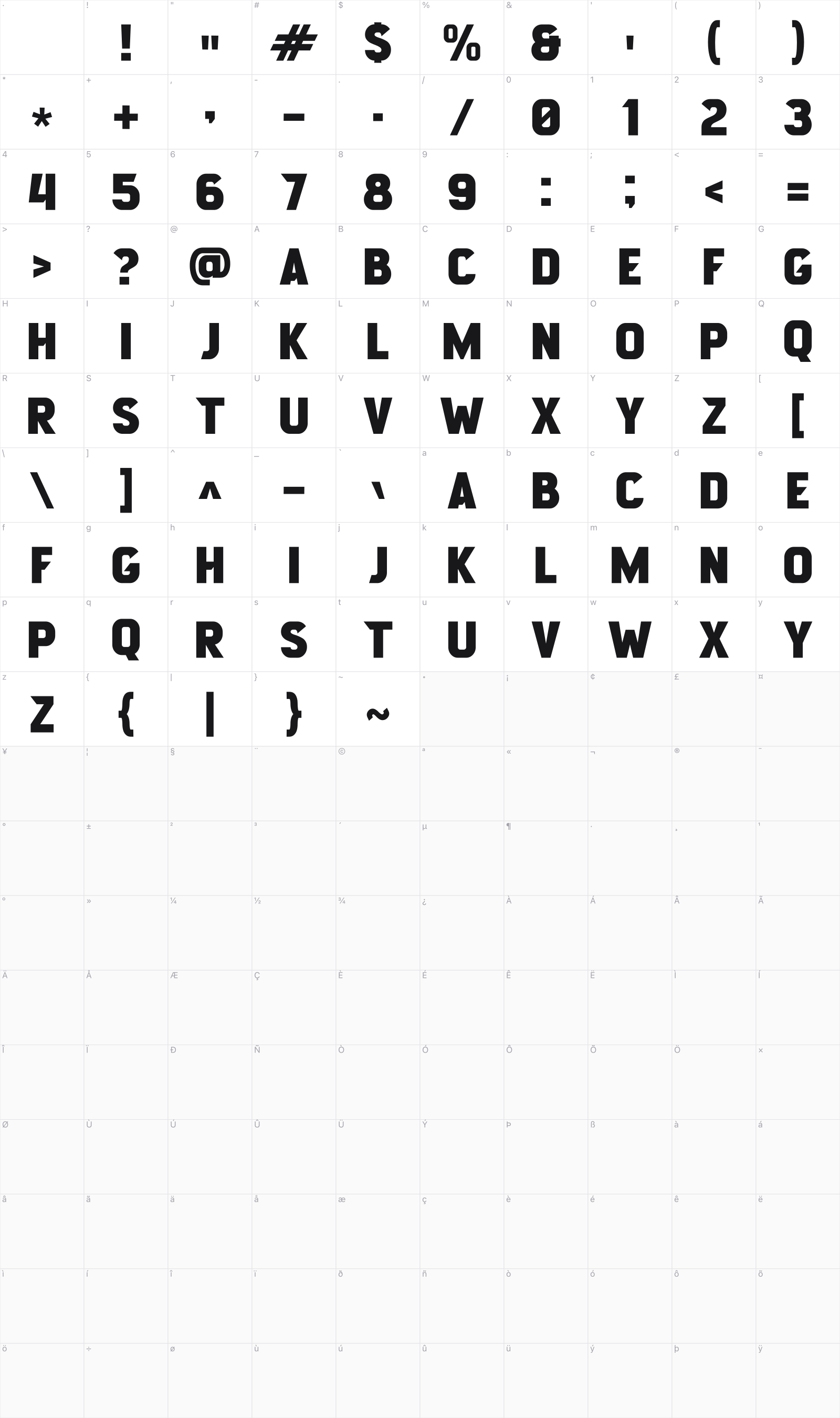
e Explosive Attack
Explosive Attack is a heavy condensed sans-serif with bold rectangular forms and sharp notched cuts that give it a distinctly aggressive edge. The tight proportions and angular detailing draw on 1970s sports and action typography. Strong as a headline or poster face where impact is the priority.